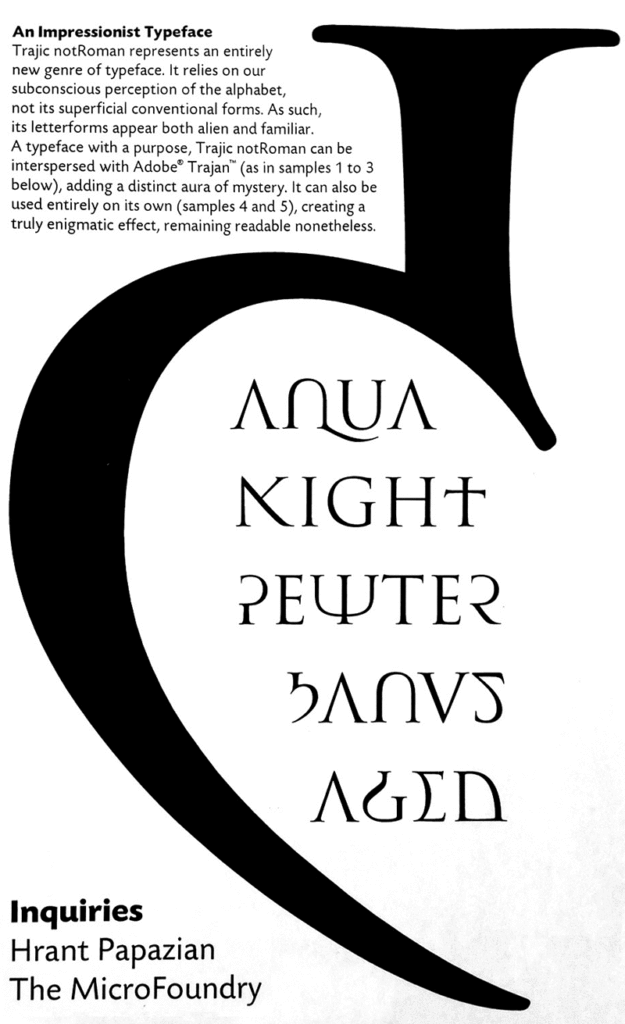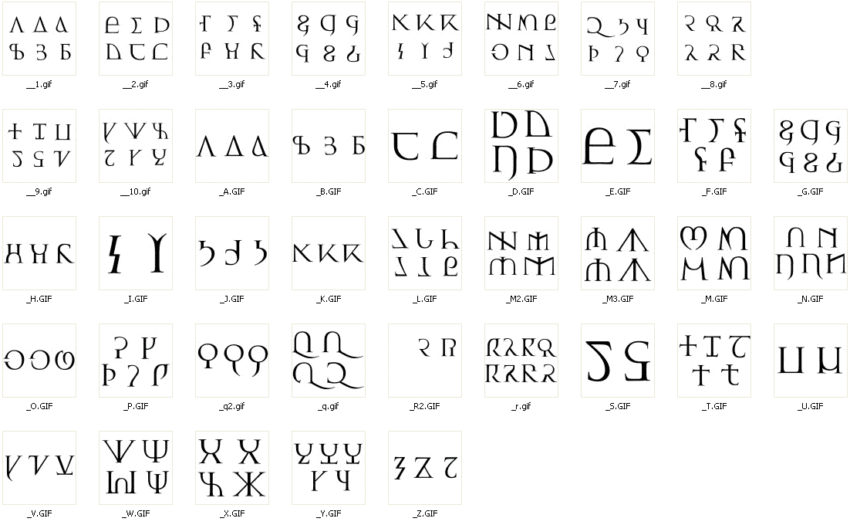
Type designer Hrant Papazian designed the Trajic notRoman, which consists of invented glyphs, questioning the decipherablility of various forms and put to the test in a real-world experiment at TypeCon 1998. What is a “Q”? What is the morphological essence of a letter? Such questions led to an experiment that taunted the limits of legibility in order to better understand the character-recognition processes of the human mind.
MicroFoundry Designer Hrant Papazian is a diasporan Armenian living in Los Angeles. It helped that his family was living in Silicon Valley exactly when the personal computer was born, so making digital Armenian fonts was a natural outcome. Eventually he started making money at it and has expanded into working with Latin and other writing systems. He presented Trajic notRoman at TypeCon in 1998 and we asked him a few questions about the project.
Why Trajic notRoman?
I love exploring, the unknown. When I see a letterform I wonder how it works, how it wanders, where it might take us. I see the written word as a malleable tool, just like spoken language, and as a designer I want to help amplify and enrich it. I believe the best way to do that is to change it, so I started exploring the limits of the Latin alphabet.
I chose the Trajan font as the ideally ironic source to design all the possible “mutations” I imagined had a chance of being identified as the intended letter. I named the resultant font Trajic notRoman (as a play on Times New Roman).
I presented Trajic at the first TypeCon in 1998; during that presentation I tried to –informally–gauge the decipherability of many of the forms, and learned a good deal from that feedback. Although I sometimes mention Trajic online and during conference talks, I haven’t presented it in its full form since; however I do feel its speculative essence makes it persistently relevant.
What was the outcome? Did the reaction reveal anything?
One thing I learned is that what people explicitly state they can read is not the same as what their more free-wheeling subconscious reading mechanism can interpret; that has guided my work in text typeface design ever since.
Another outcome is that I realized there was a strong demand for such speculative fonts! Over the years many people emailed me asking to buy a copy of Trajic notRoman. Having derived it from the actual outlines of Adobe Trajan for the sole purpose of field-testing the concept, I could not legally or ethically sell or even give away the font. I could have made a font from scratch based on my invented structures and sold that resultant font, but frankly I’m not a good businessman, and I’m prone to favor contemplation and discussion over action!
I know that’s anathema to the contemporary approach to creativity, but I feel simply making something leads to mere refinement of the thing, while I’m a bigger fan of cultural progress, which is essentially in the mind.